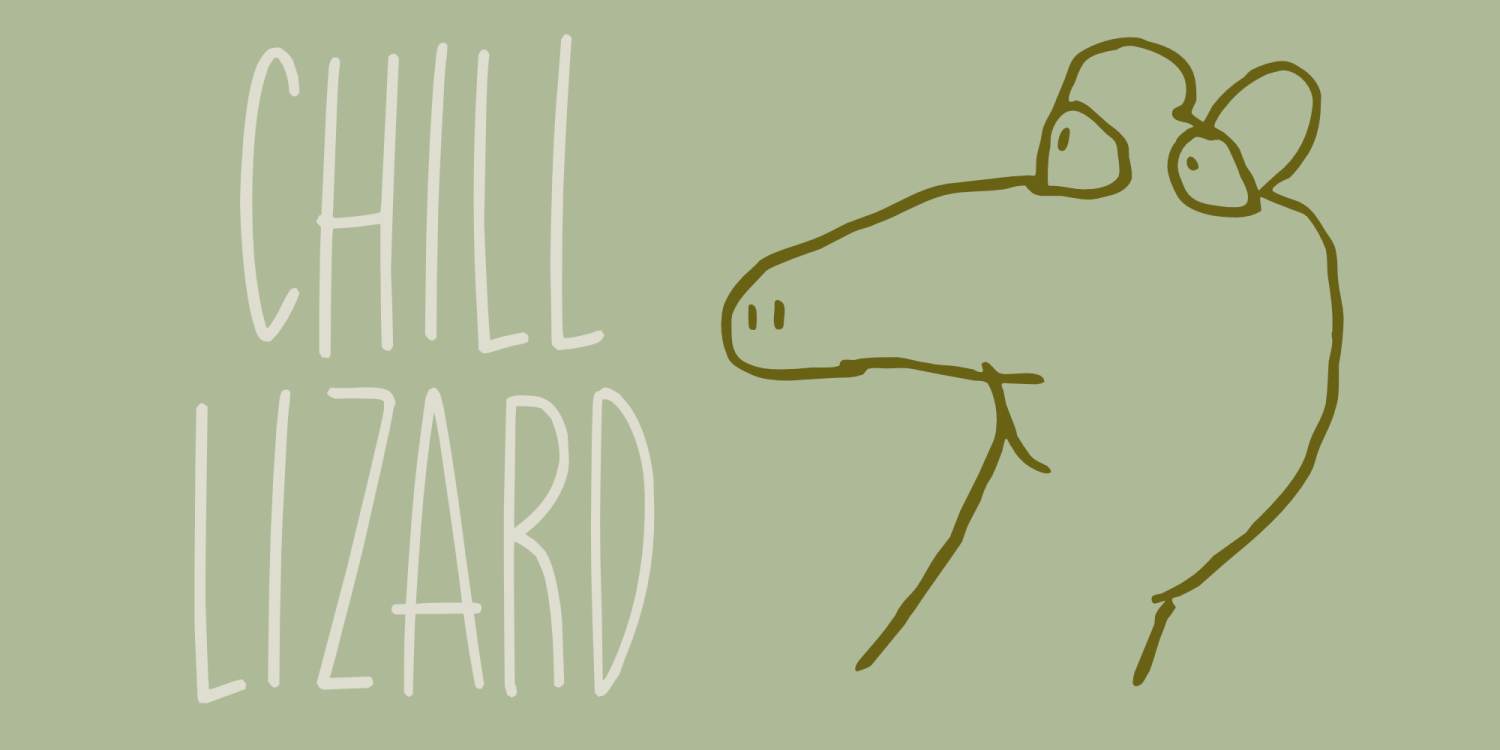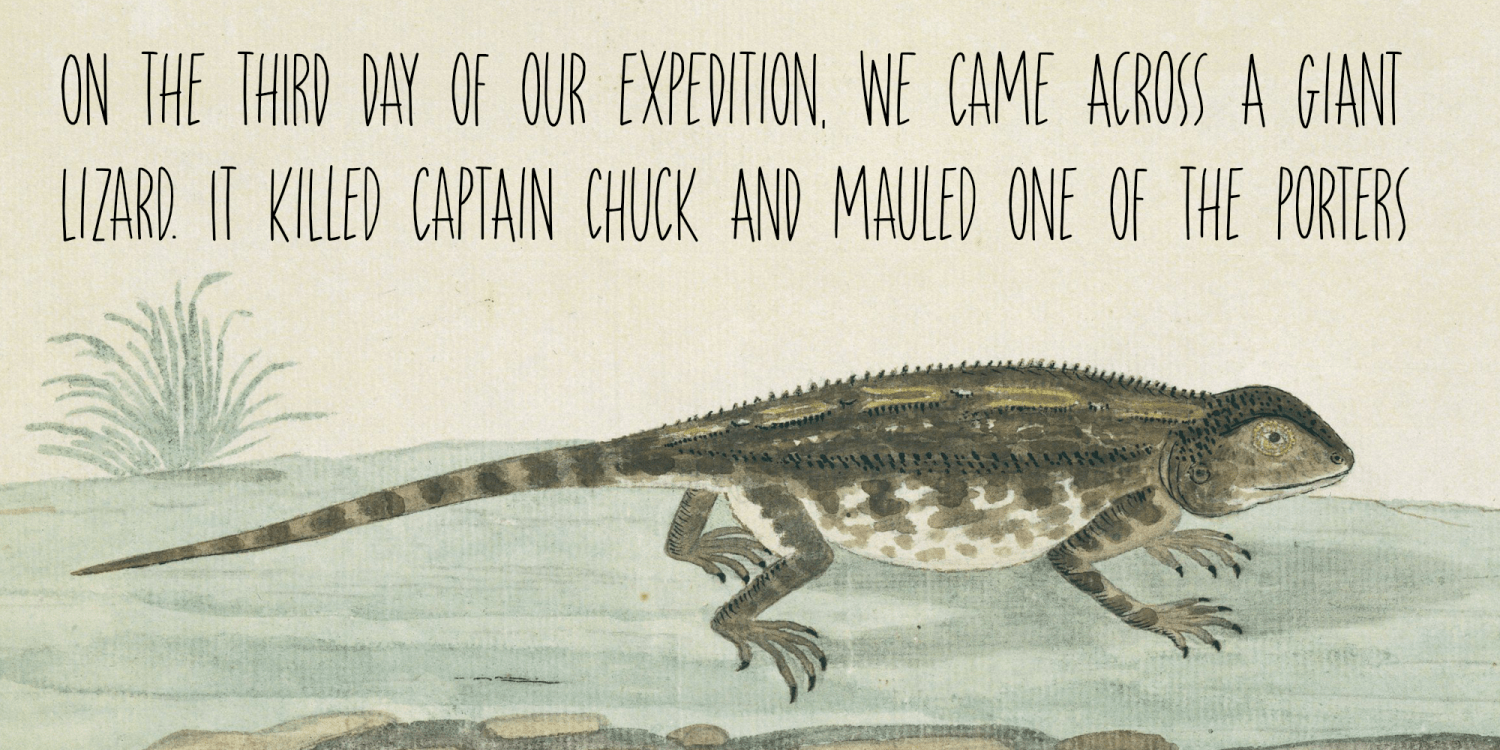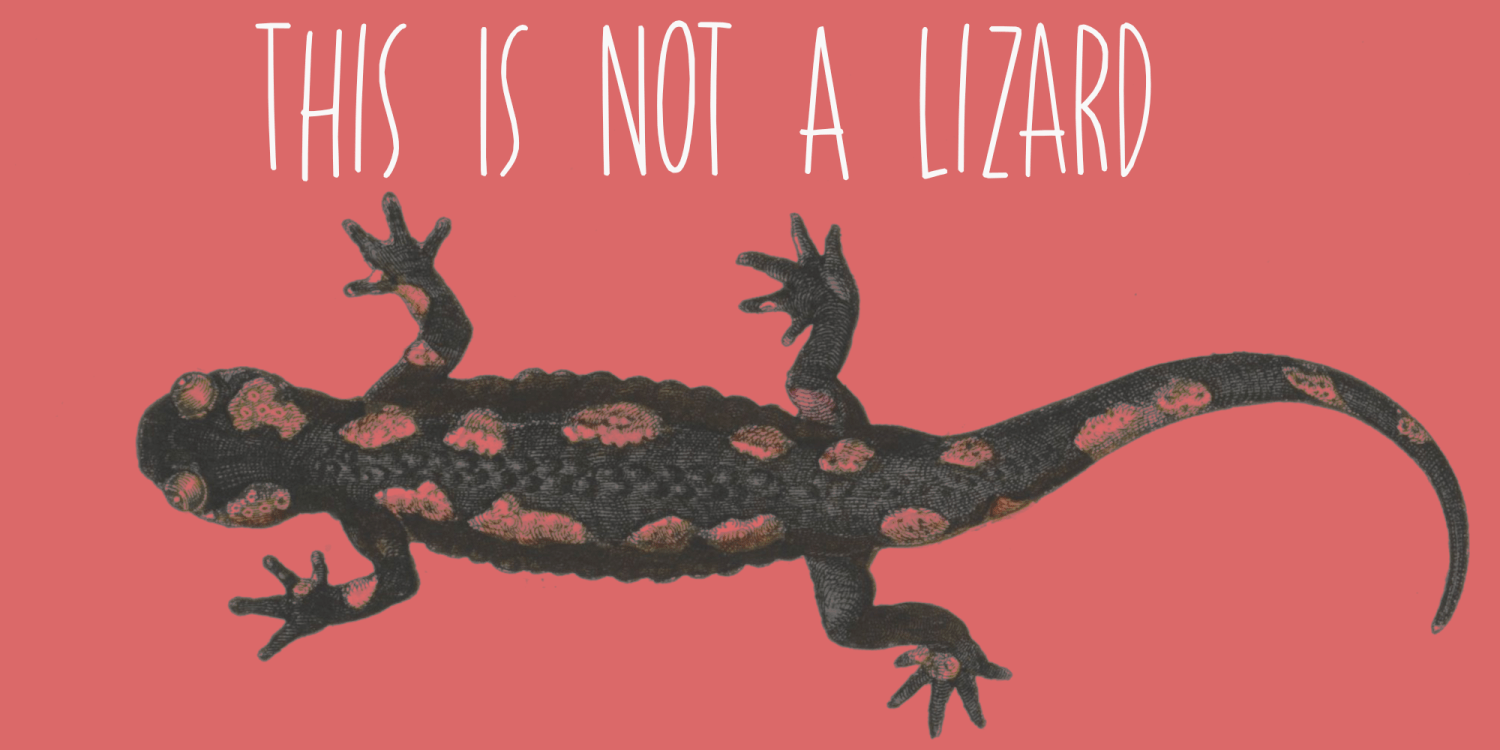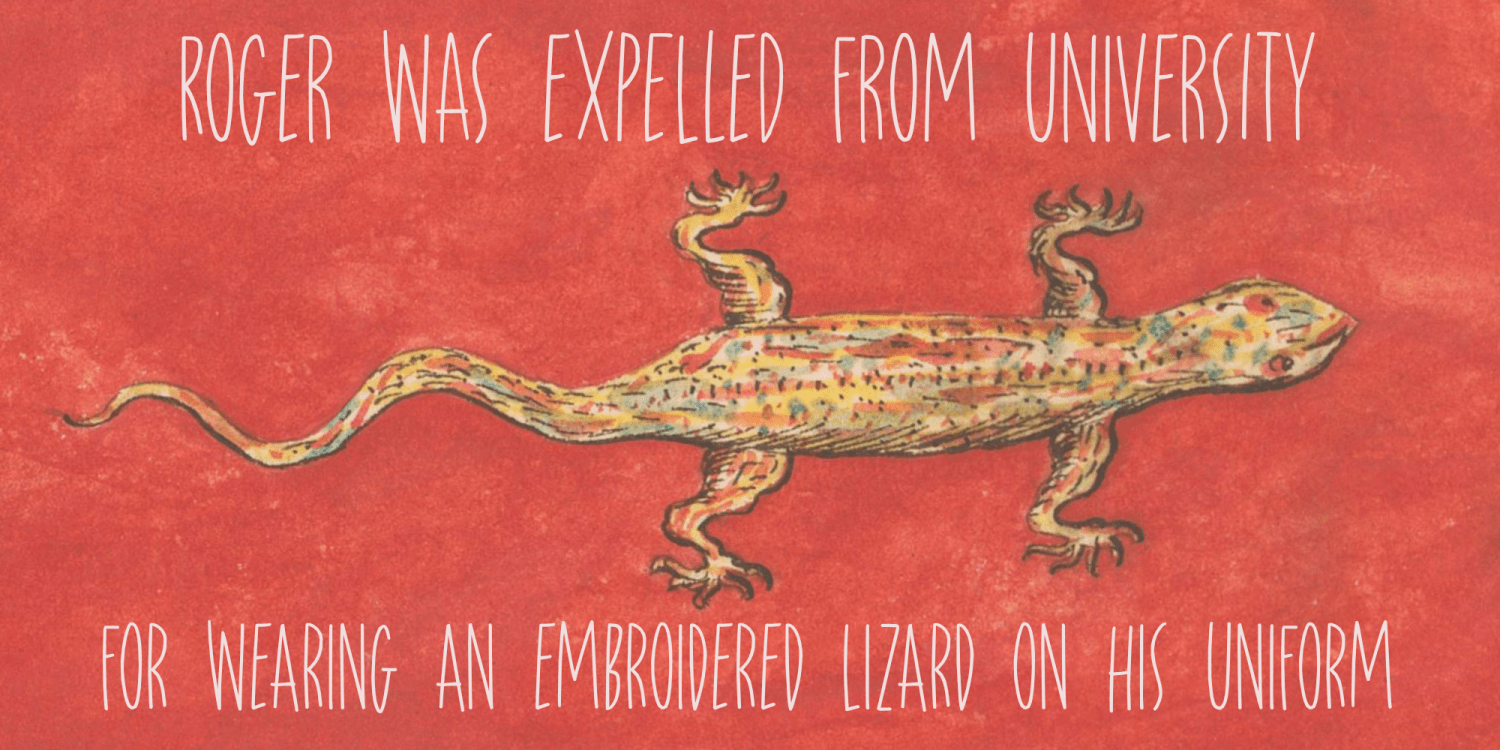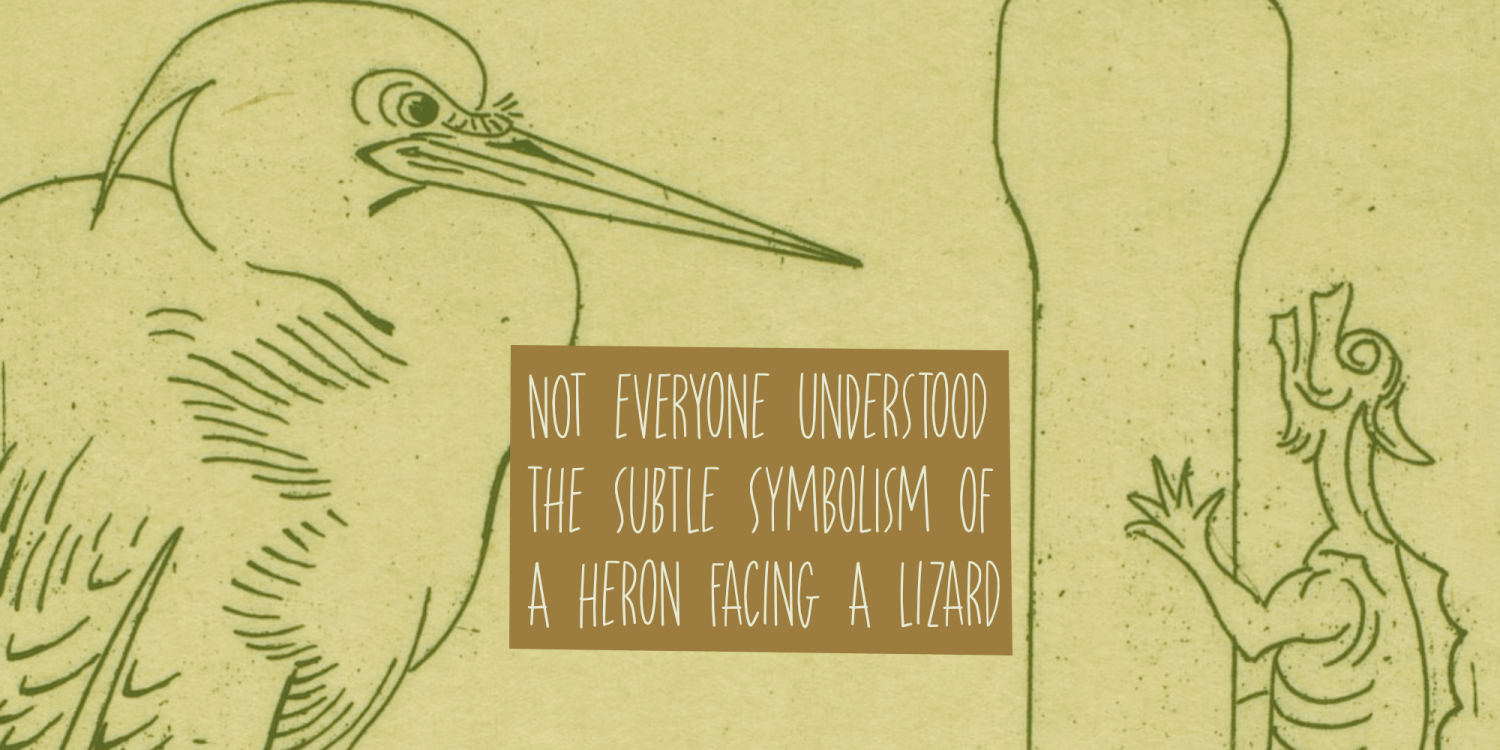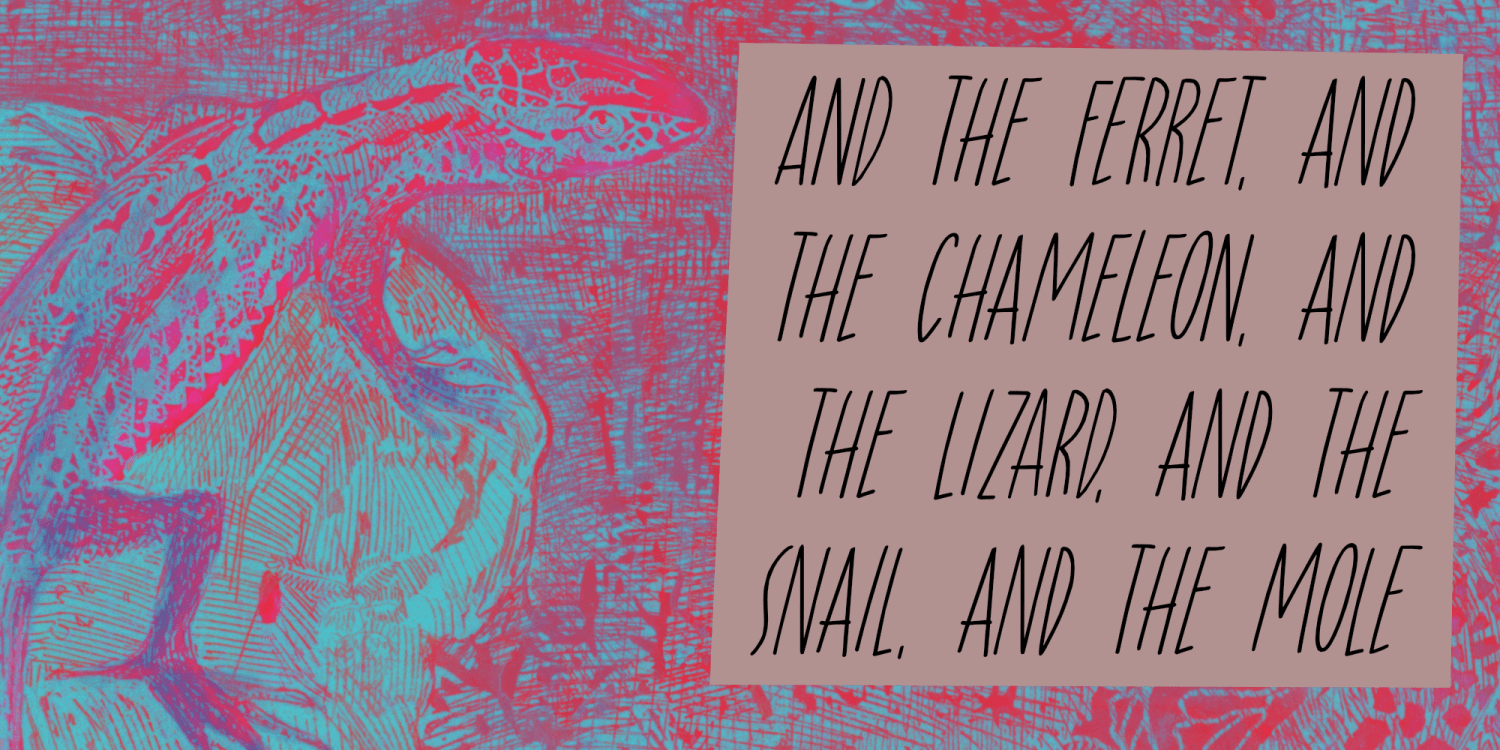
Chill Lizard
My youngest son Boris is a special boy: he knows EVERYTHING about animals, even the things he shouldn’t know, since he’s only 8 years old. In the beginning we always laughed a bit when he told us things like ‘did you know wombat poo is cube shaped?’, but we soon realised that everything he said was in fact true (including the wombat poo).
He doesn’t talk much using words, but he does talk with drawings and funny stand up sketches. So, a few weeks ago, he drew a lizard, which was his way of telling me he wanted to visit the zoo. I did like that drawing of his, so I decided to draw a font for it and named it Chill Lizard.